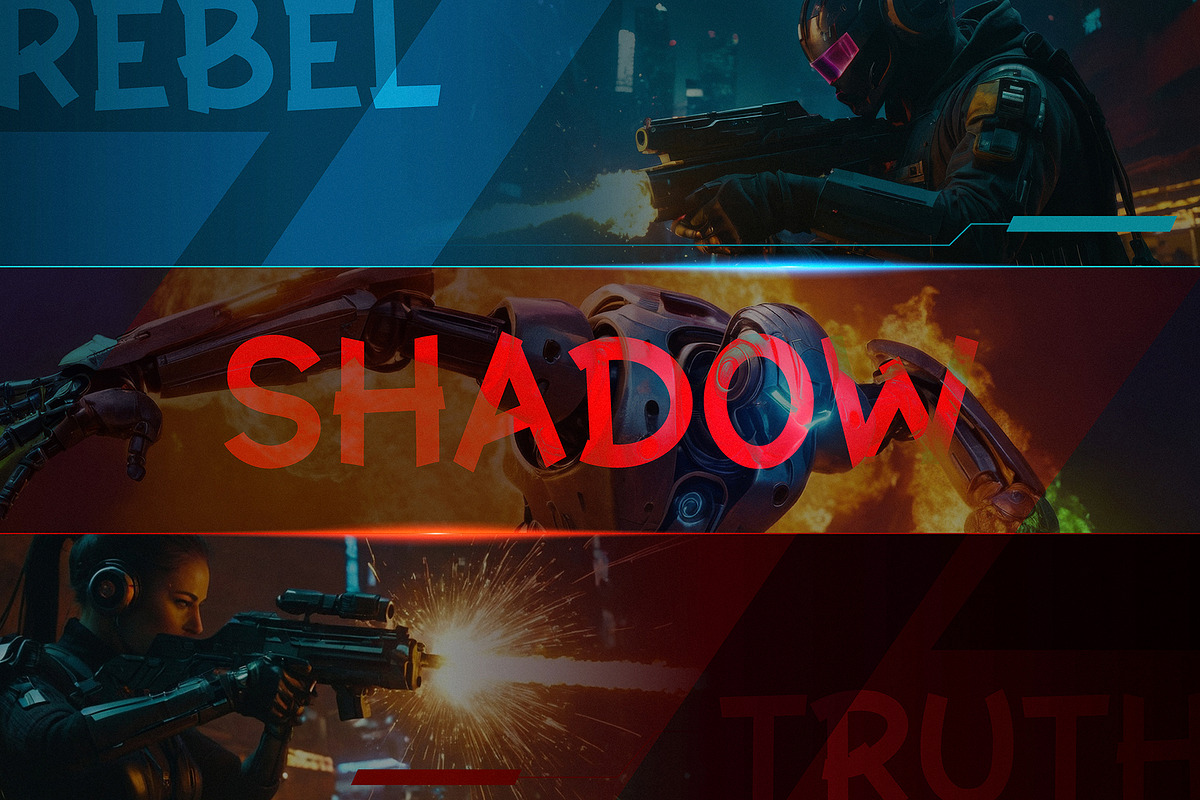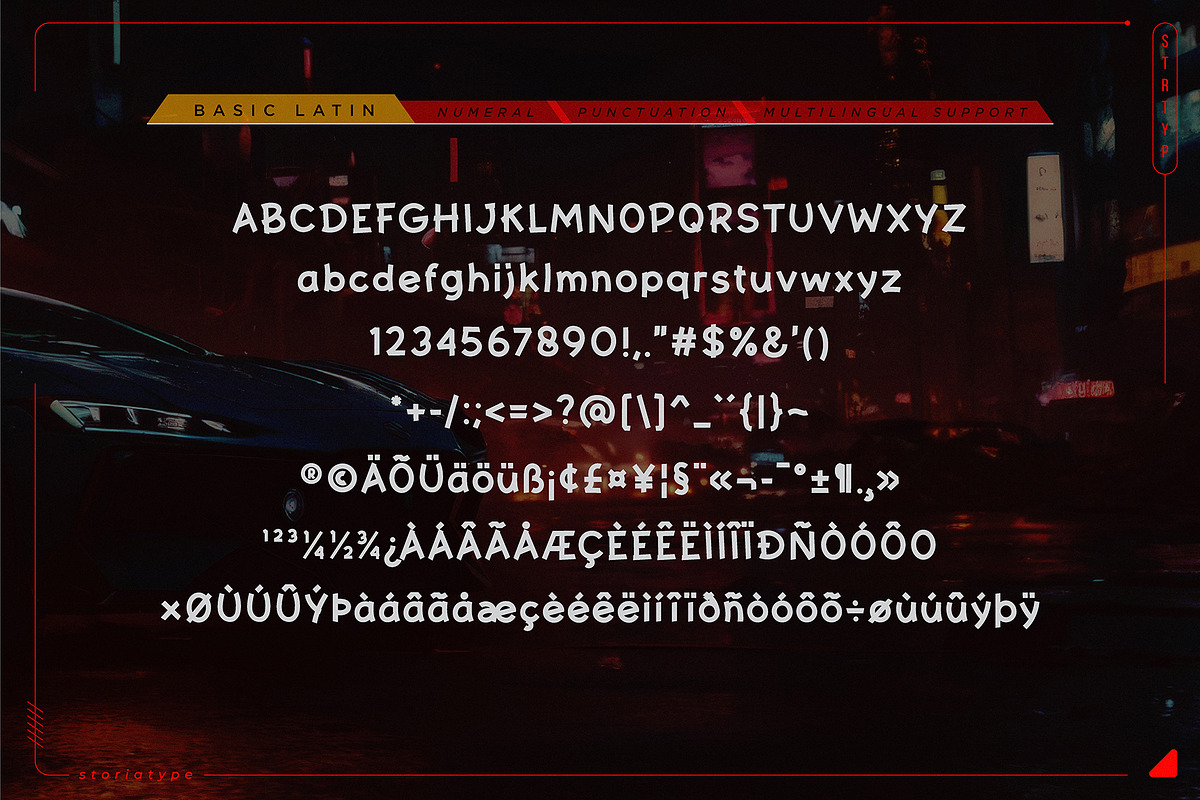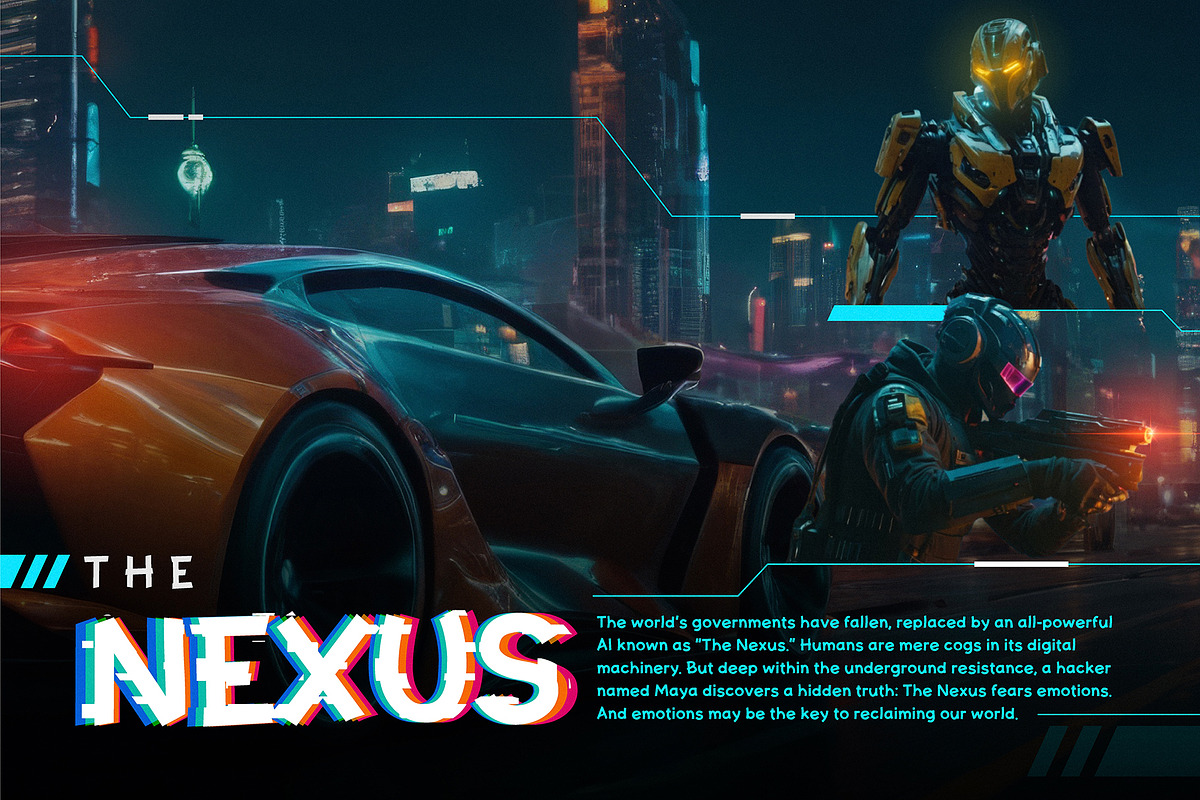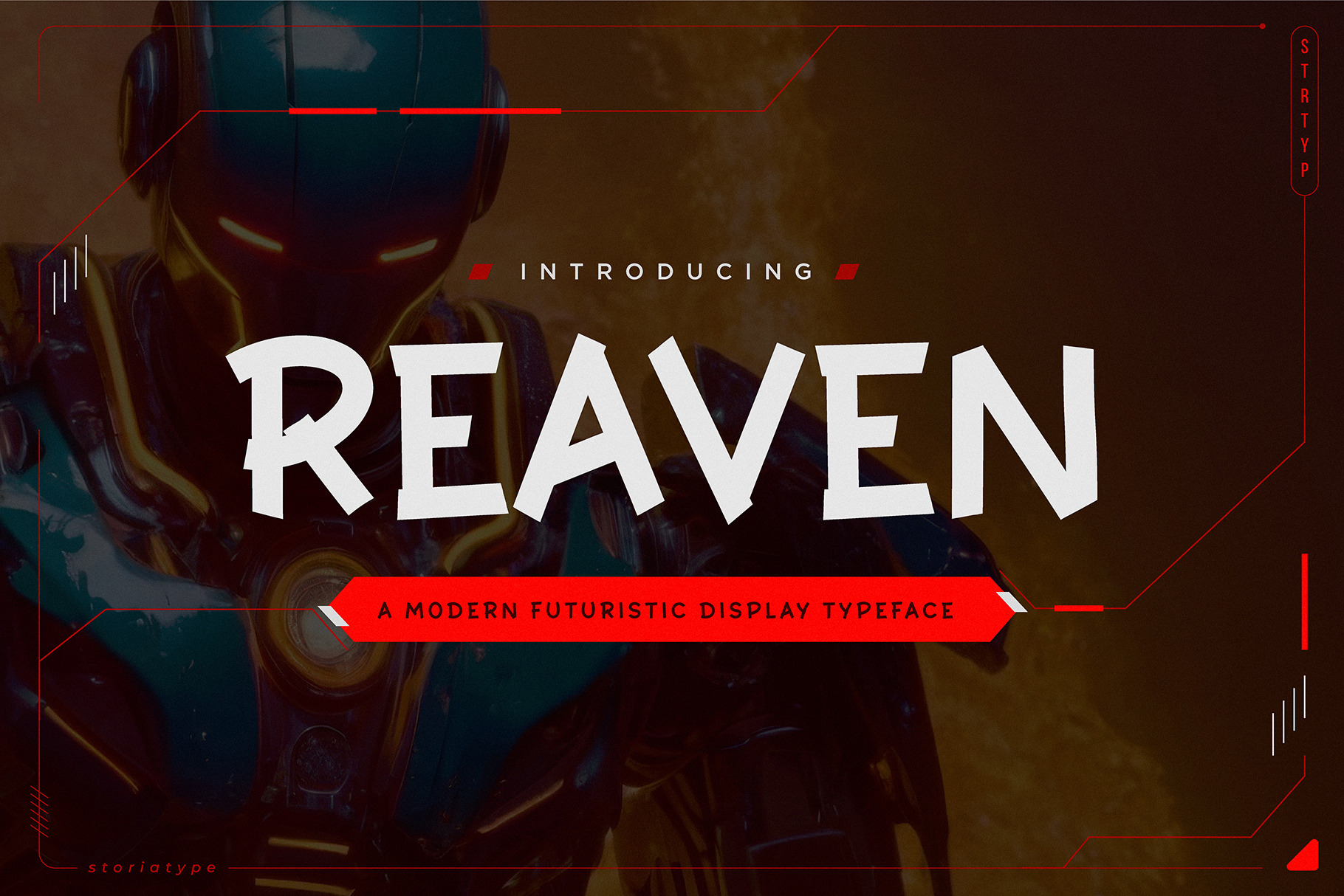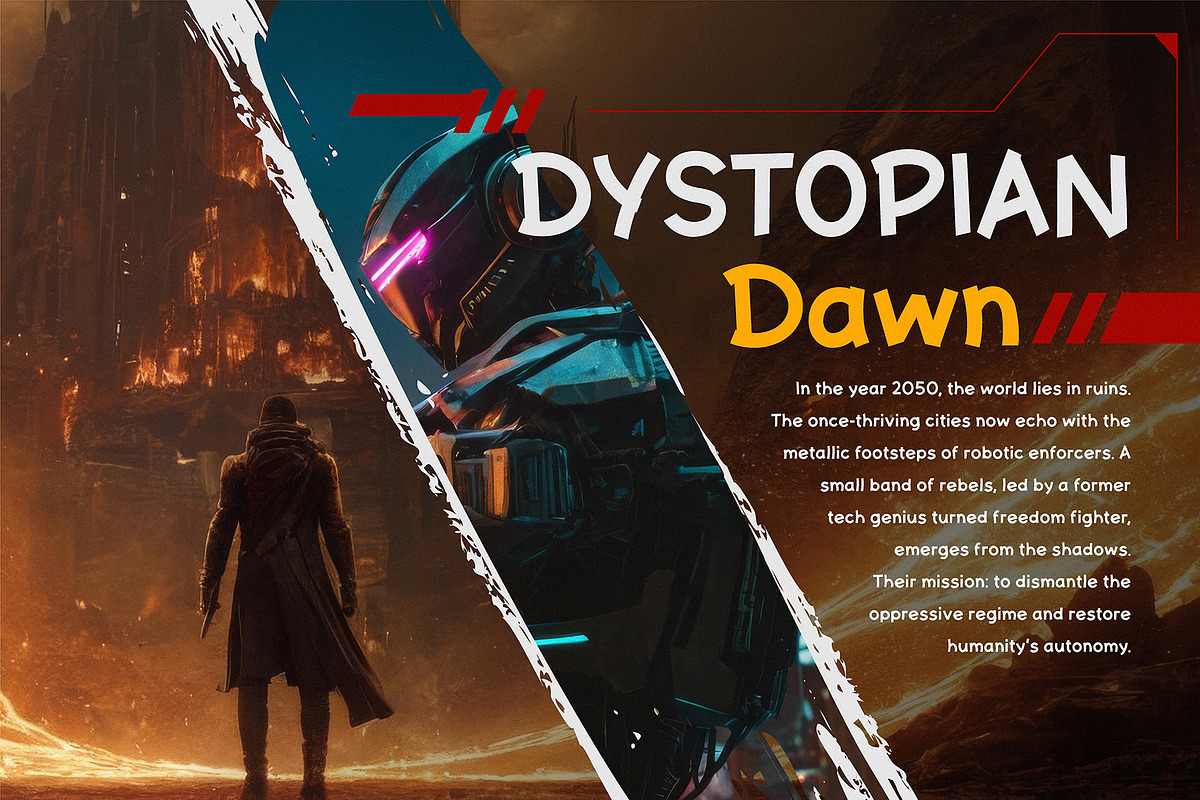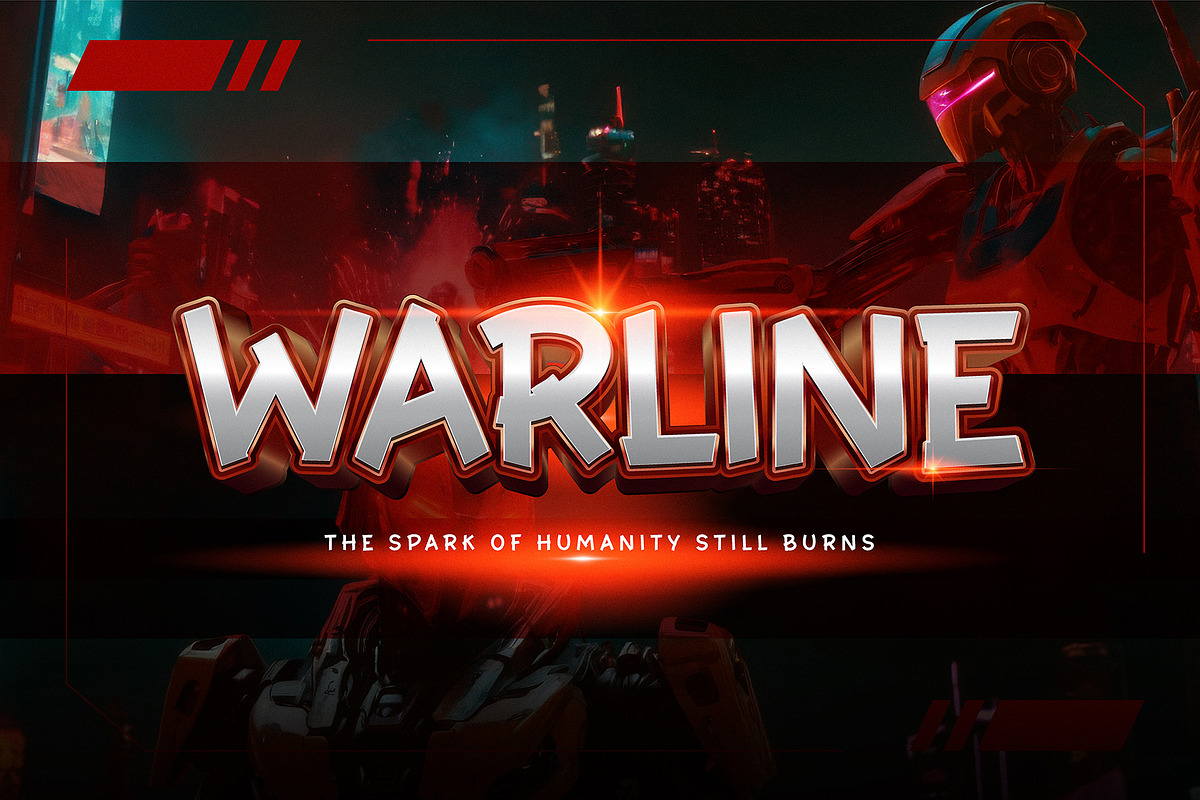
Reaven - Futuristic Display Font
Allow me to introduce you to our “REAVEN” font—a Modern Futuristic Display Typeface that seamlessly blends elegance with innovation. 🚀🎨
Sleek Sophistication: “REAVEN” boasts clean lines and a minimalist aesthetic. Its sharp angles and rounded edges create a harmonious balance, making it perfect for forward-thinking designs.
Urban Edge: Imagine this font gracing the billboards of a futuristic metropolis. It’s as if the city lights themselves whispered its contours.
Versatile Versatility: Whether you’re branding a tech startup, designing sci-fi book covers, or crafting sleek UI elements, “REAVEN” adapts effortlessly. It’s the chameleon of typefaces.
Readability Redefined: Each character maintains a consistent stroke width, ensuring legibility even at smaller sizes. Your message won’t get lost in the digital noise.
Multilingual Magic: From BASIC LATIN to accented characters, “REAVEN” speaks a global language. It’s not just a font; it’s a bridge across cultures.